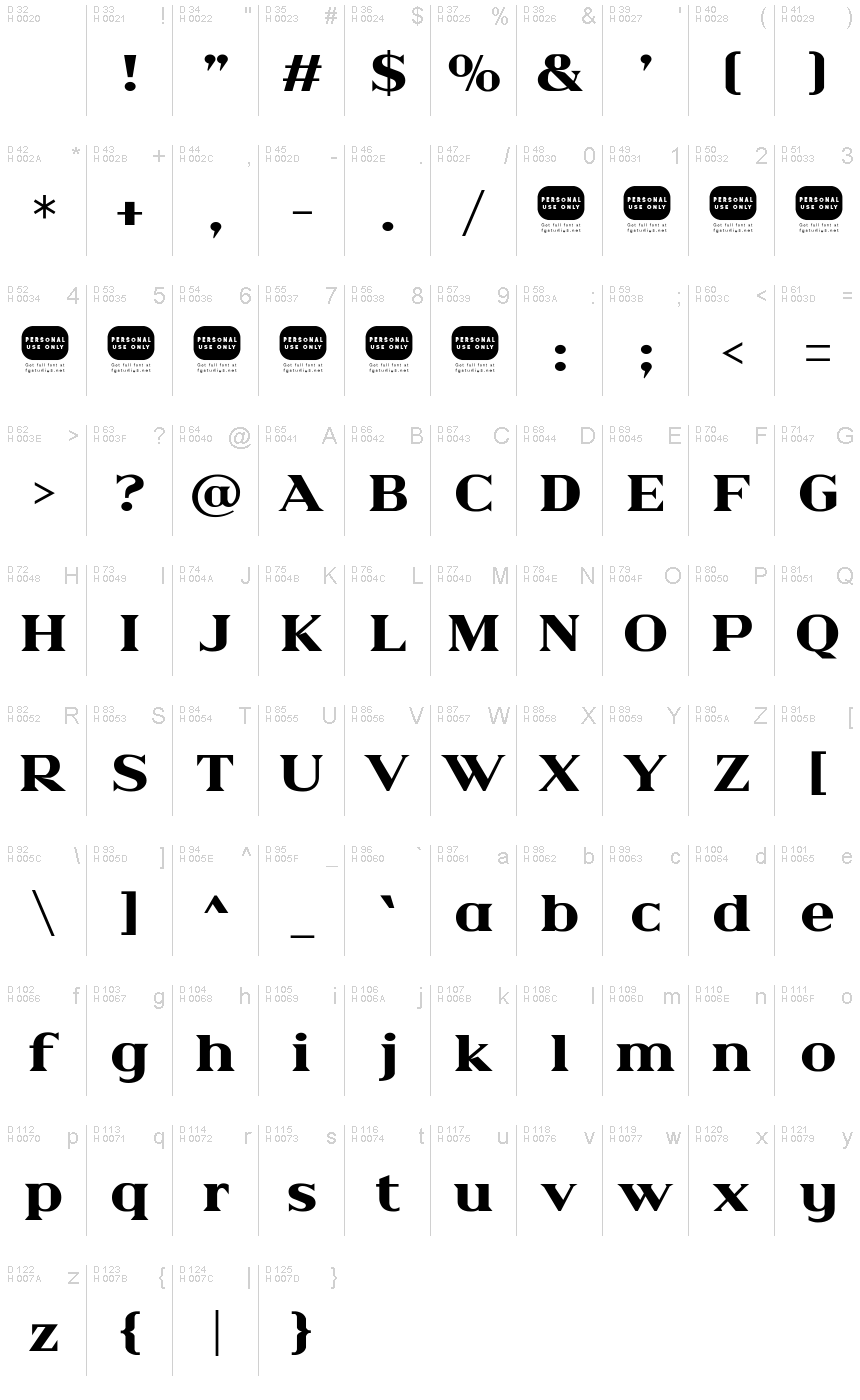
Rosan
Rosan, the bold and expanded font from FG Studios, exudes an air of authority and strength. Its thick, geometric letterforms command attention, lending a sense of modern sophistication to any design. The heightened width of the characters creates a striking visual impact, perfectly balancing elegance and power. This captivating font invokes a feeling of confidence and professionalism, making it a versatile choice for a wide range of applications.
Rosan's bold, expanded design lends itself seamlessly to headlines, display text, and branding elements. Its robust presence ensures maximum visibility, making it an excellent selection for eye-catching posters, impactful signage, or attention-grabbing advertisements. Furthermore, the font's clean, minimalist aesthetic harmonizes beautifully with both contemporary and industrial-inspired design schemes, providing designers with a flexible tool to elevate their projects.